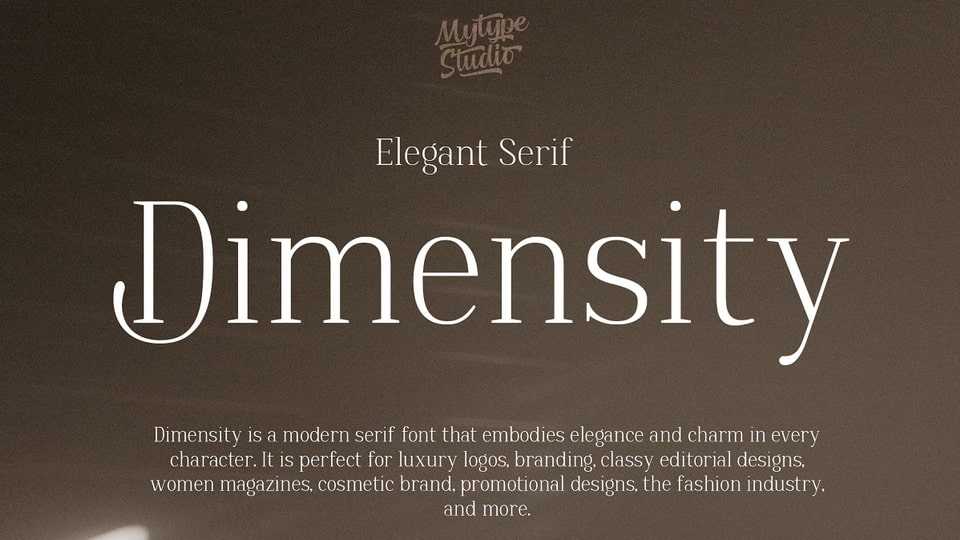
Download Dimensity font, a modern serif typeface that embodies elegance and charm in every character, perfect for luxury logos, branding, classy editorial designs.
Designer: Mytype Studio